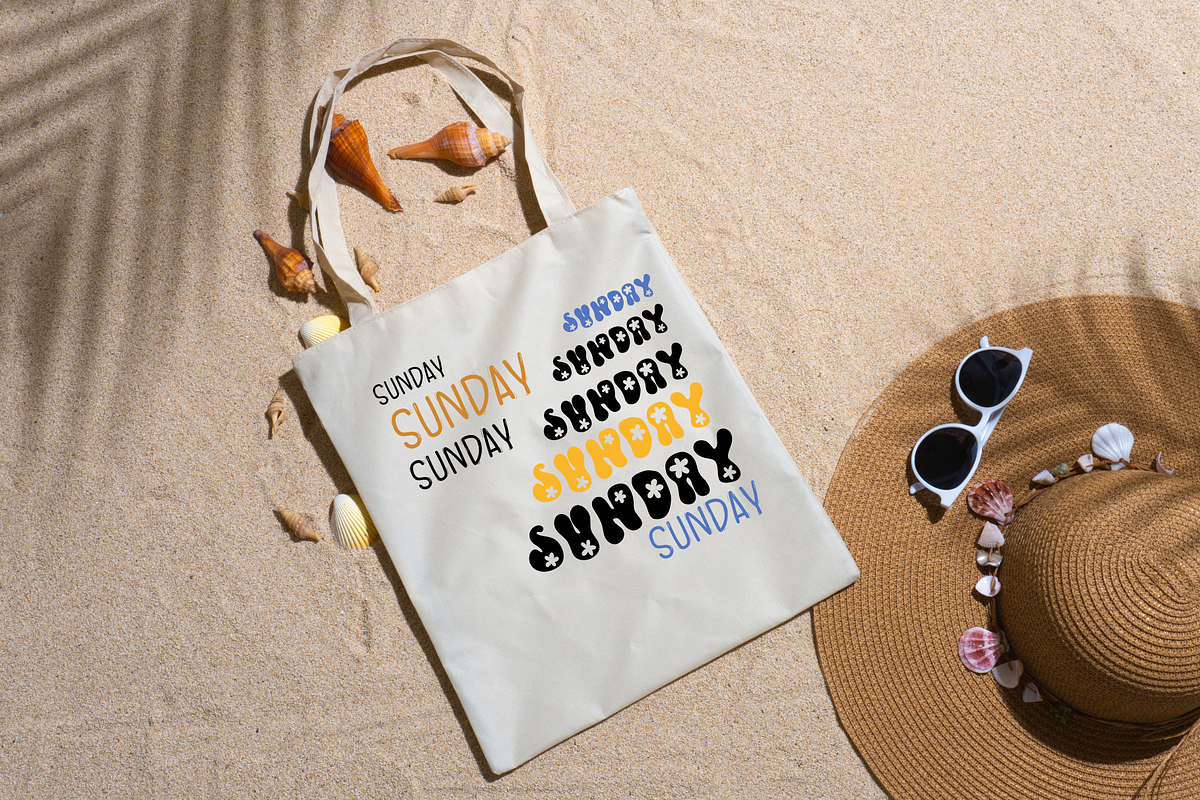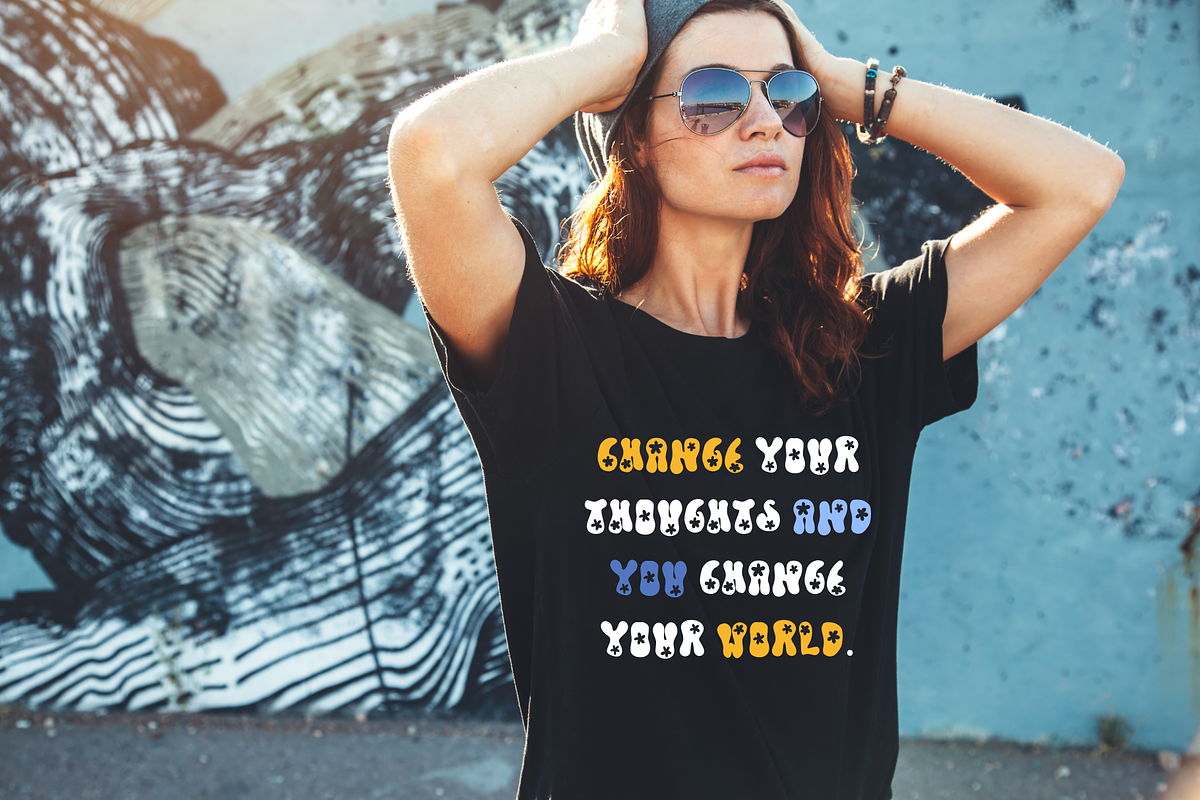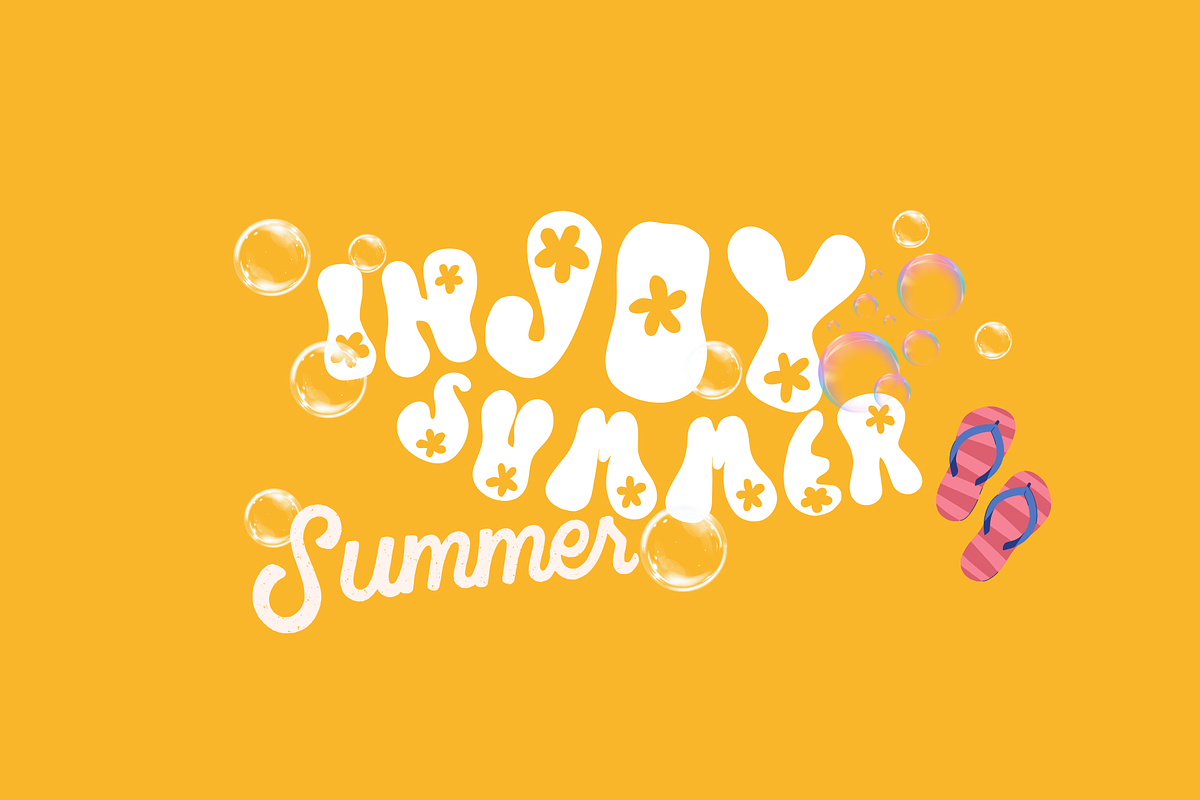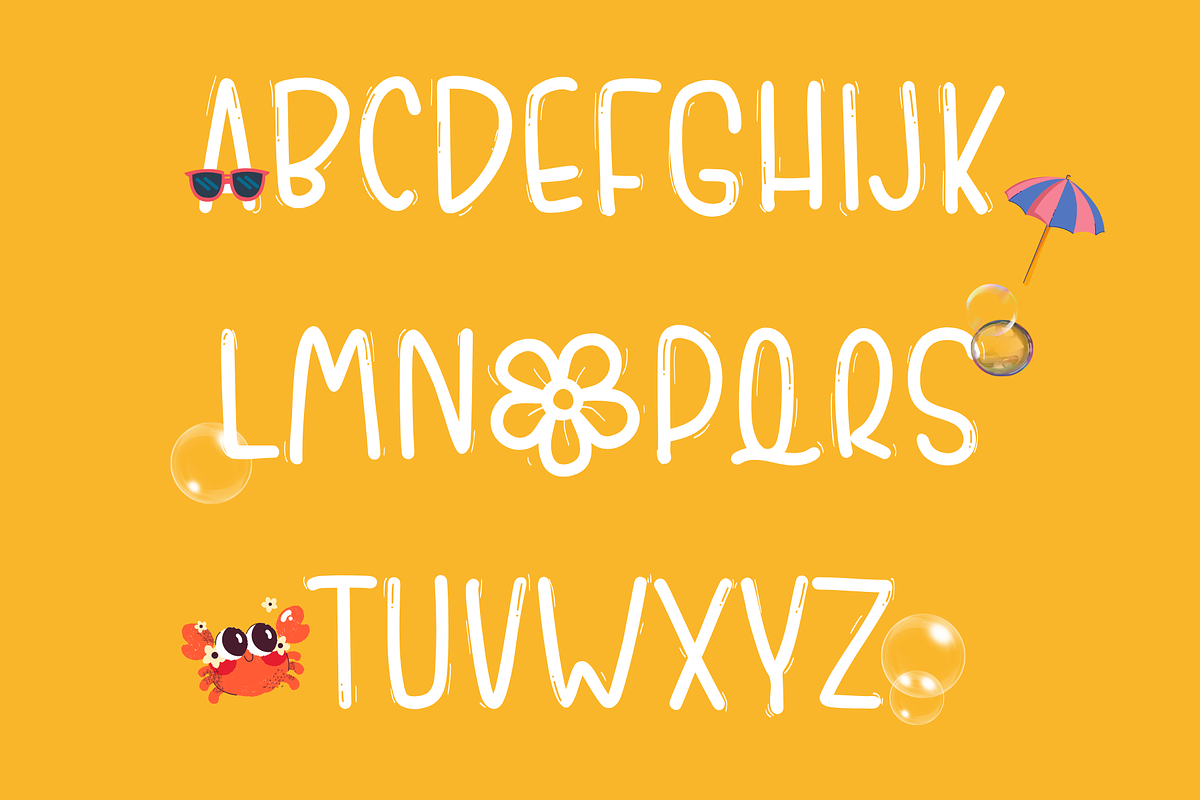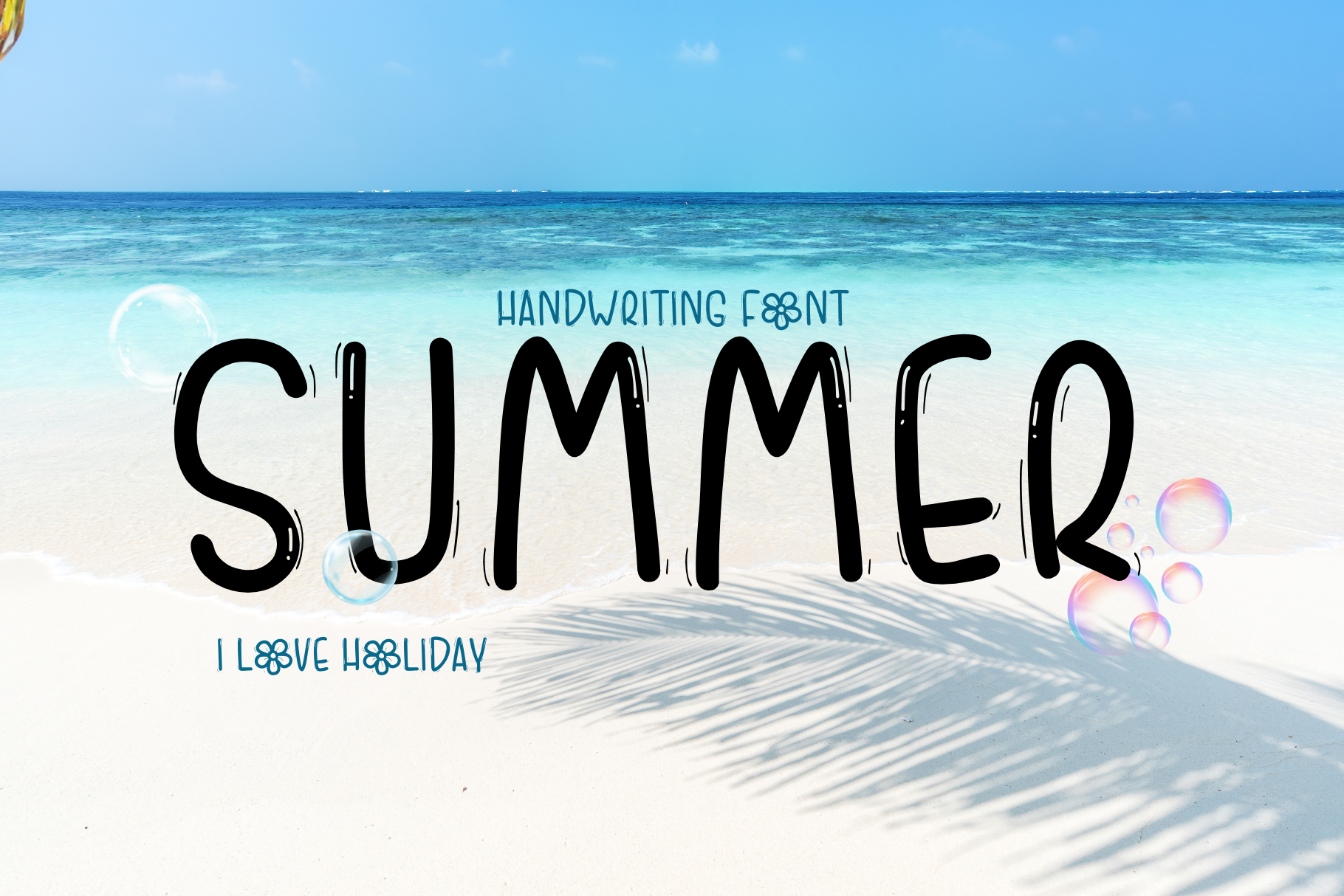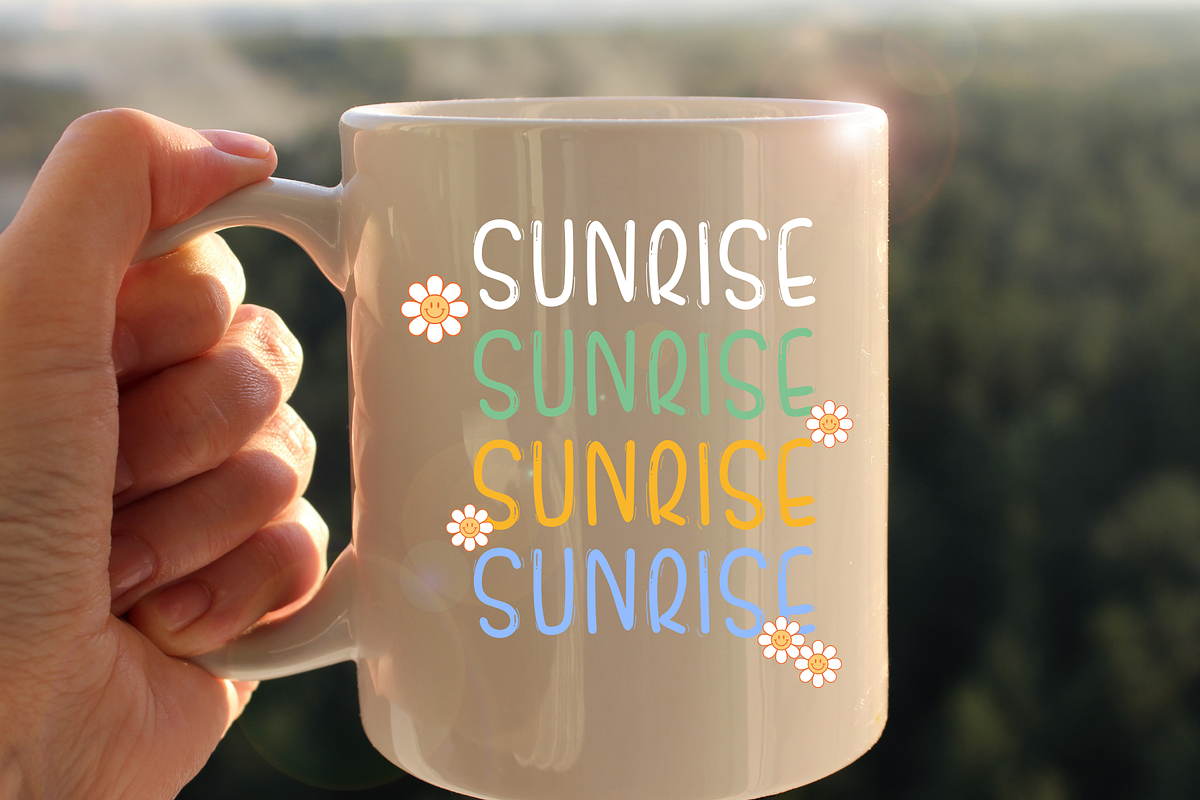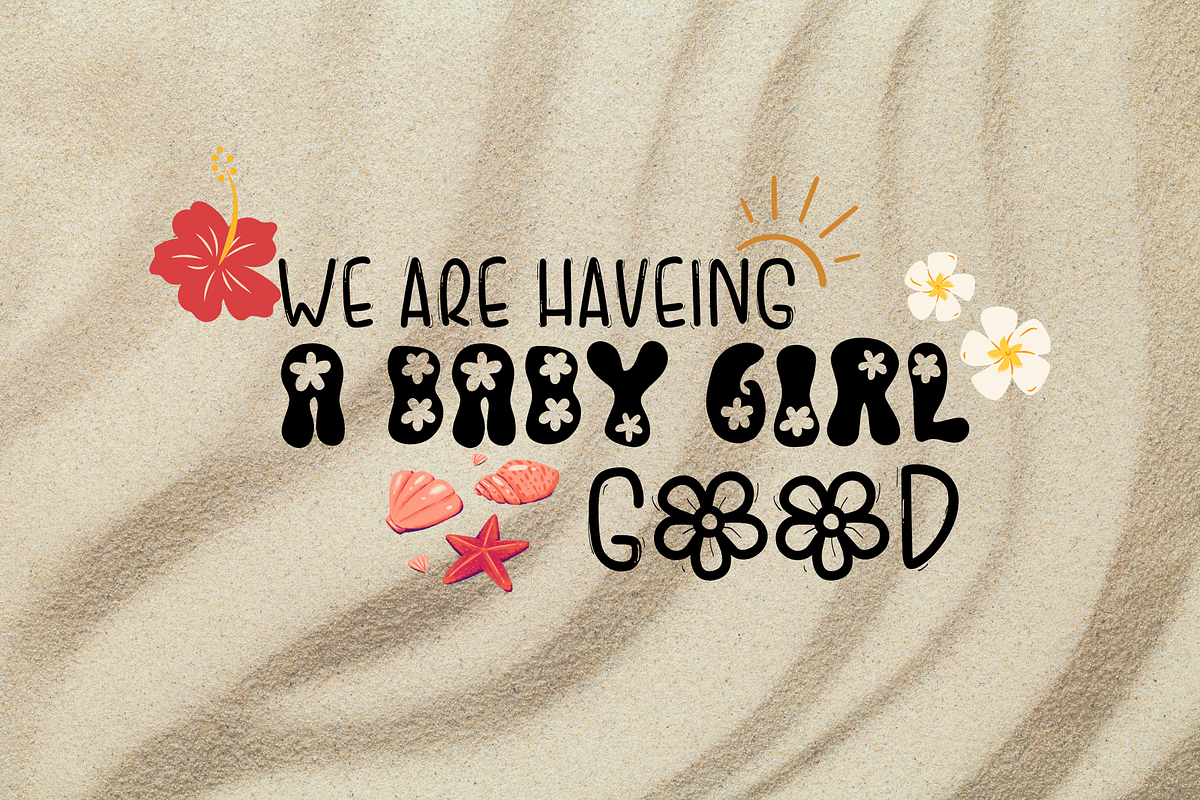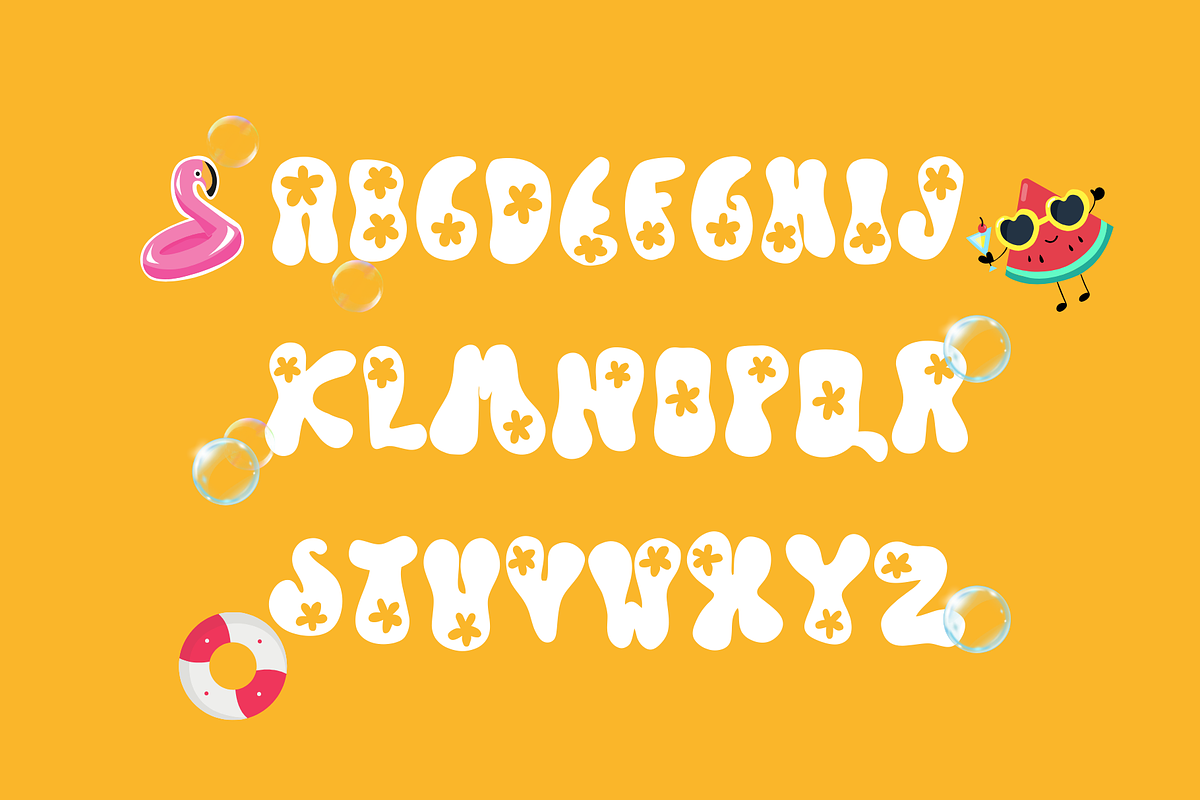
Summer font
"The cute and playful hand-decorated fonts come with various styles, perfect for the summer festival, adding charm and unique style to your designs. These fonts can be used for a variety of purposes, whether it's graphic design work, Canva, Procreate, logo design, and more.